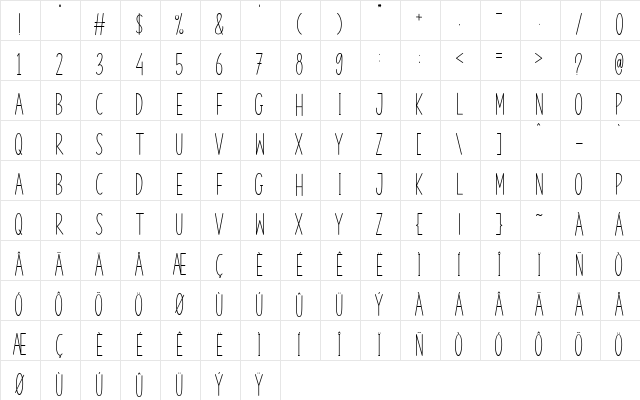
Kitchen Home Regular
Design Context for Kitchen Home Typeface
Kitchen Home offers clean, dependable letterforms without strong stylistic allegiance, making it a practical choice for designers who need flexibility.